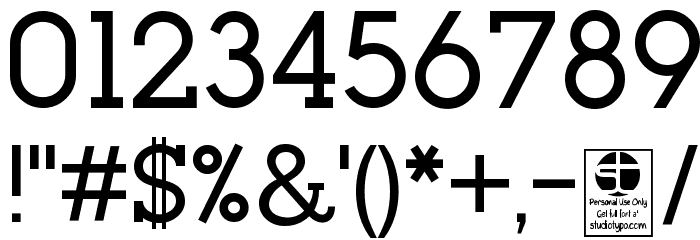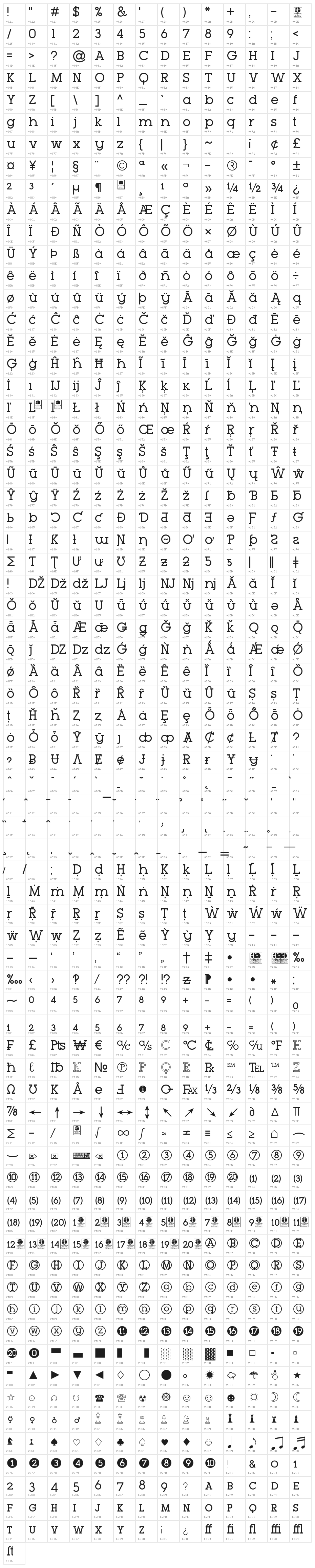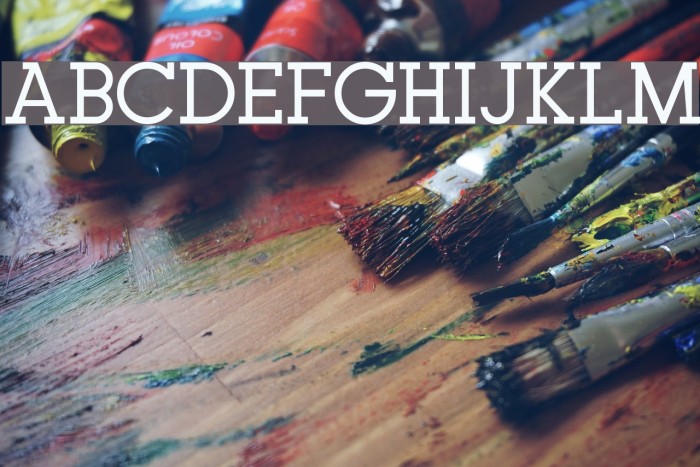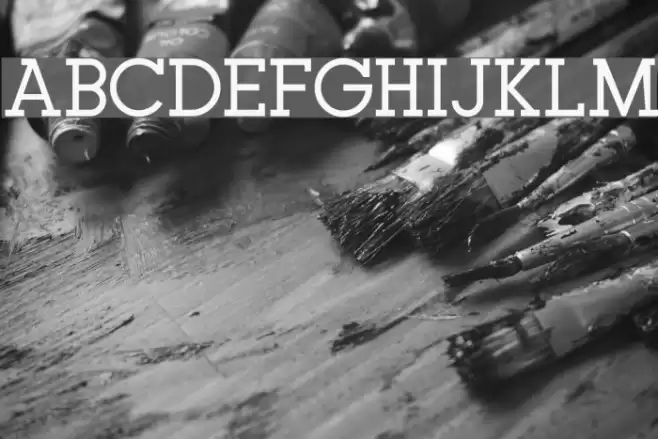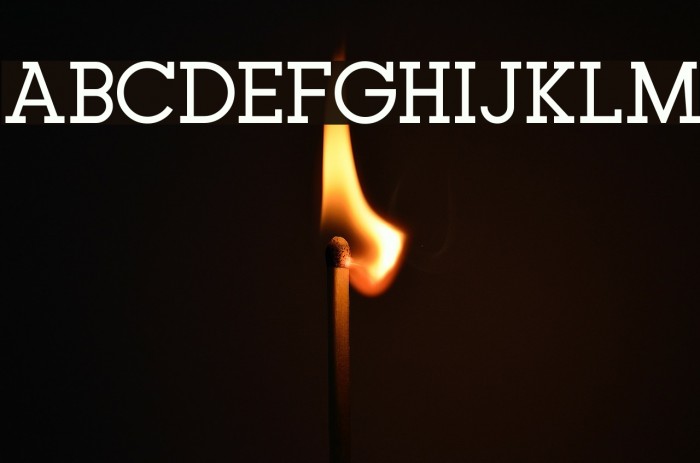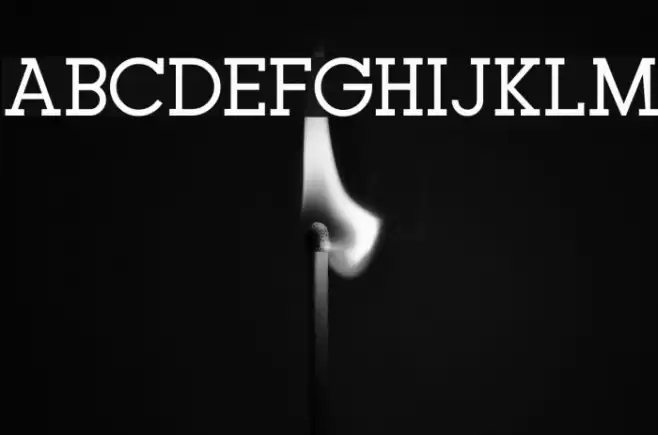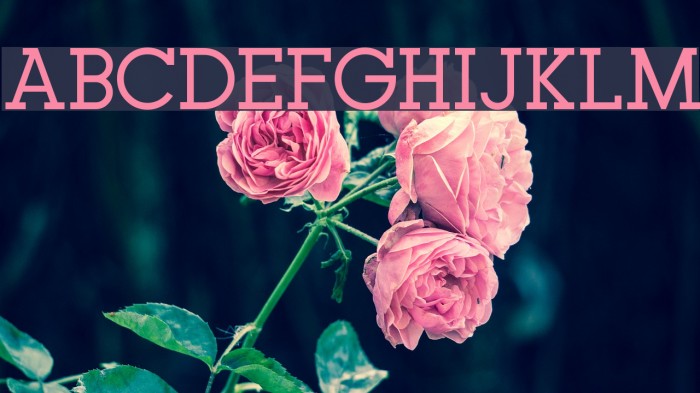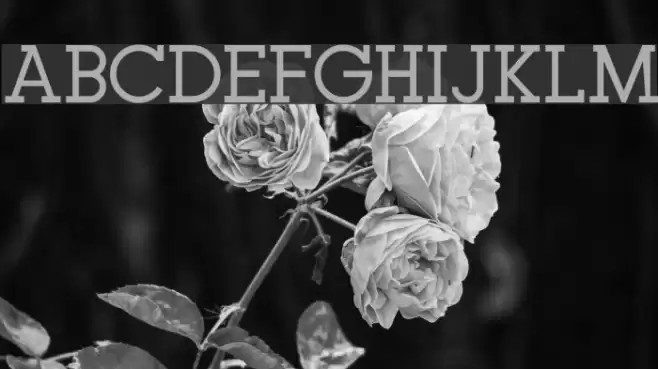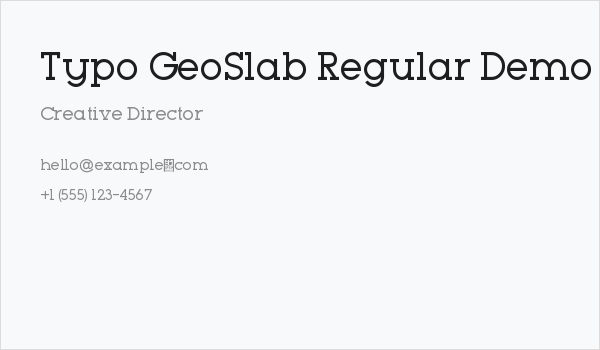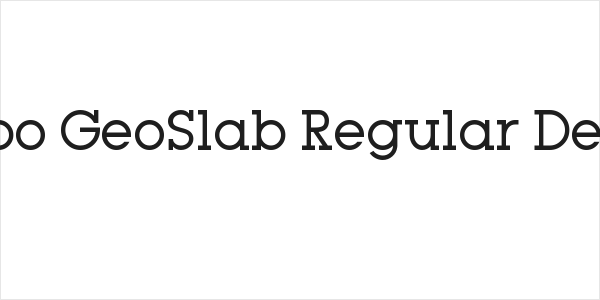
Typo GeoSlab Regular Demo Font
Typo GeoSlab Regular Demo Description
This font features a robust and geometric slab serif style, characterized by its strong, block-like serifs and consistent stroke widths. The uppercase letters are bold and commanding, with a uniform height that conveys stability and strength. The lowercase letters maintain a similar weight, offering a harmonious balance between the upper and lower cases. The numerals are clear and legible, designed to stand out with their bold presence. Special characters are well-integrated, maintaining the font's overall geometric and structured appearance. This font is versatile, suitable for both digital and print media, where a modern yet classic look is desired.
Use CaseHeadlines, Logos, Branding
Proposed ProjectsIdeal for branding, headlines, posters, and editorial design where a bold and structured appearance is needed.